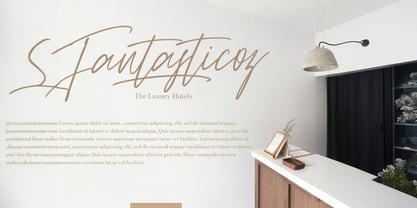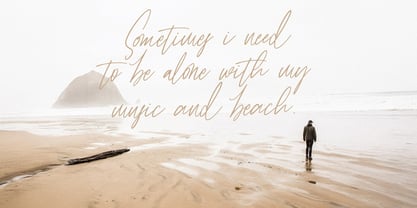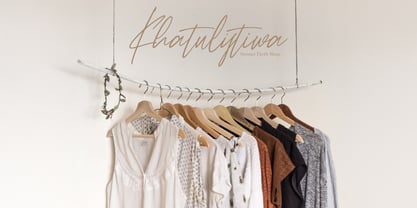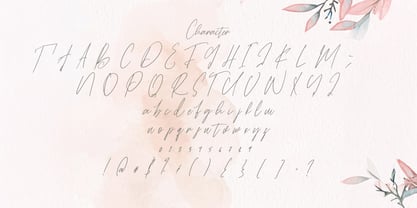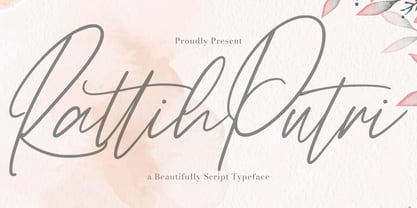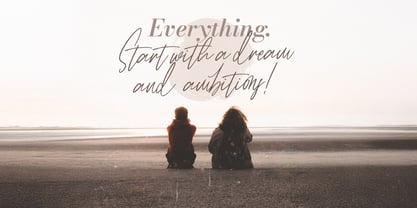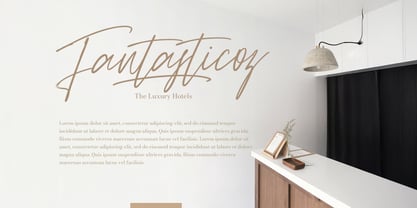
Rattih Putri
by Stringlabs Creative Studio
The Rattih Putri Font Family was designed by Virgiawan Listanto and published by Stringlabs Creative Studio. Rattih Putri contains 1 styles. More about this family
Rattih Putri is a delicate handwritten font that radiates elegance and grace. With its flowing strokes and refined curves, it captures the charm of natural handwriting while maintaining a modern, polished look. Perfect for branding, wedding designs, and heartfelt quotes, Rattih Putri brings a feminine and sophisticated touch to any creative project.
Designers: Virgiawan Listanto
Foundry: Stringlabs Creative Studio